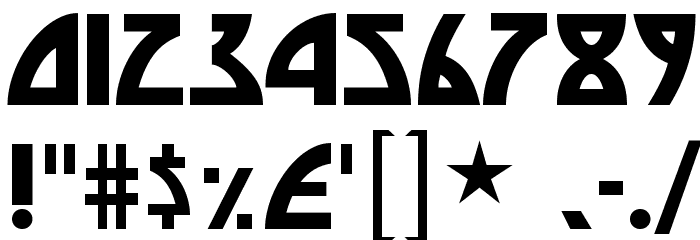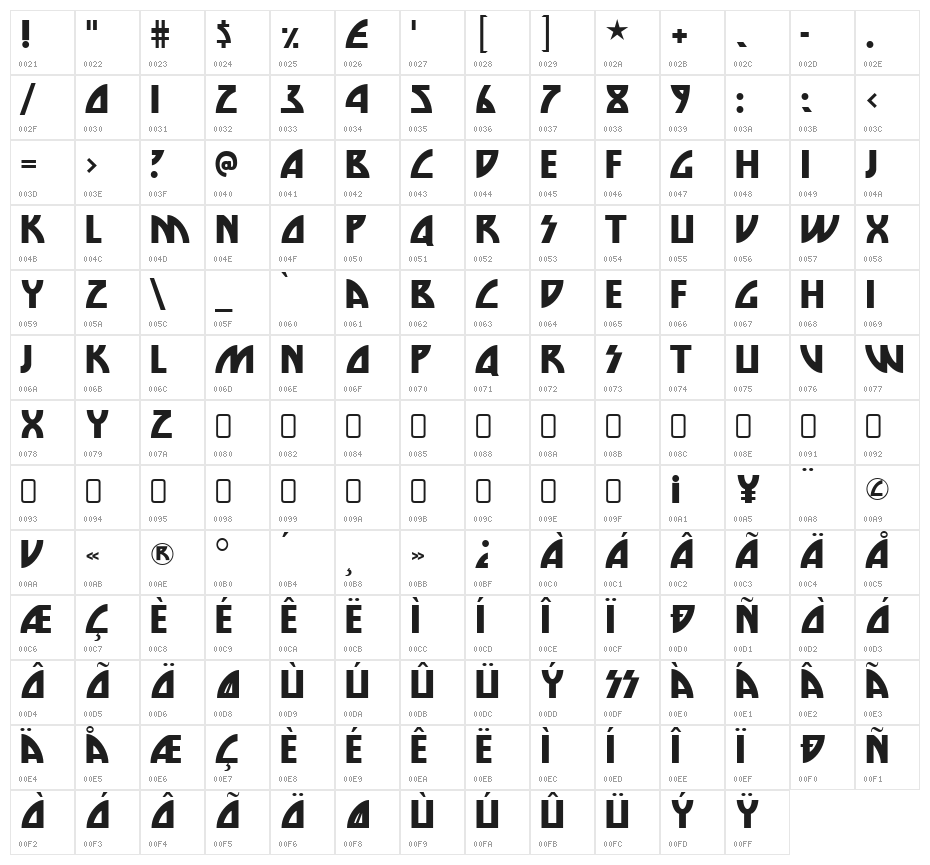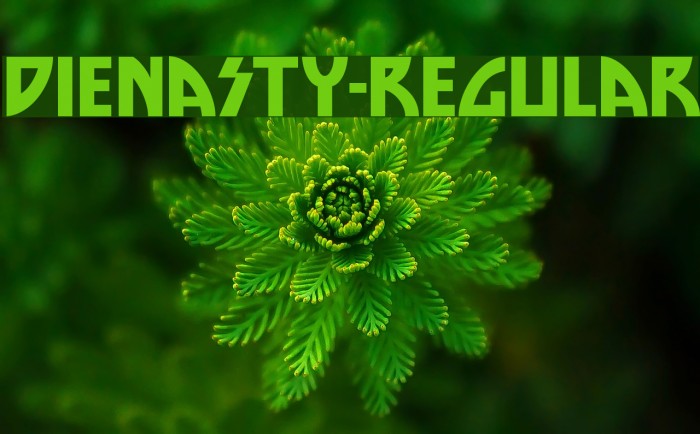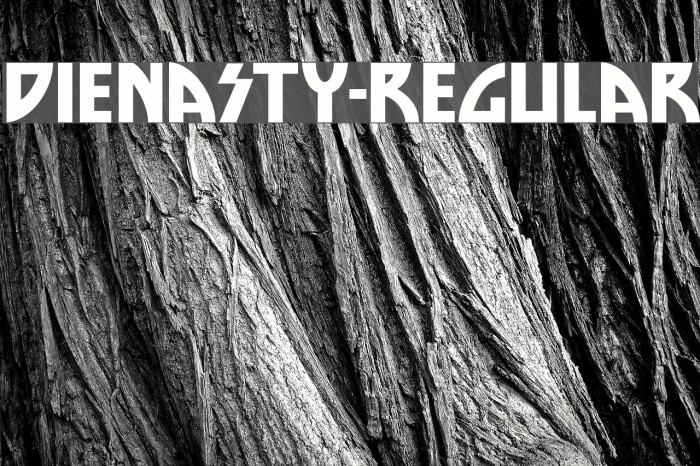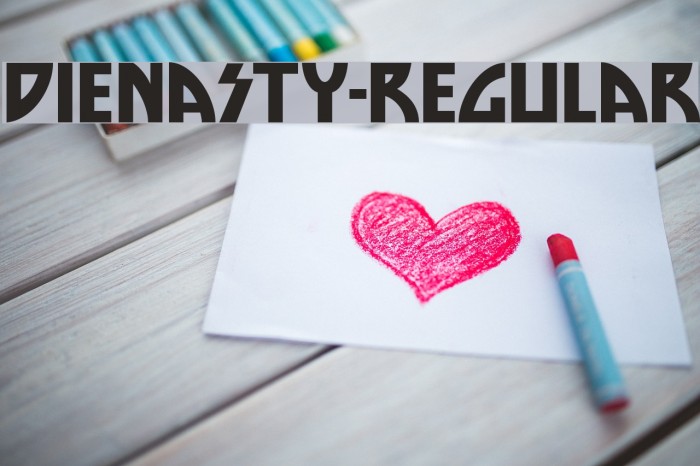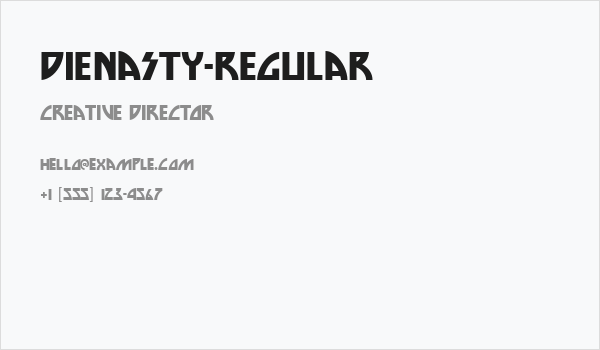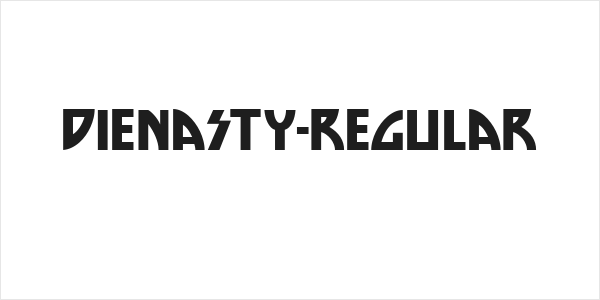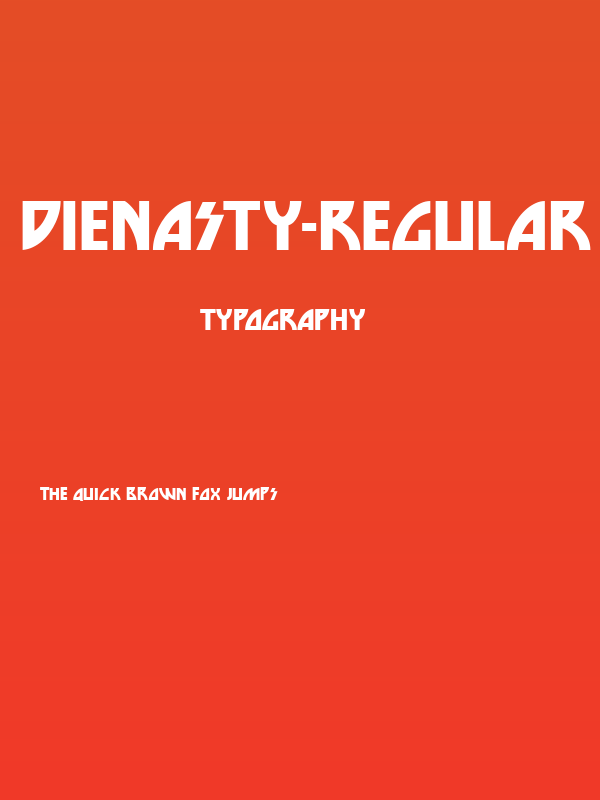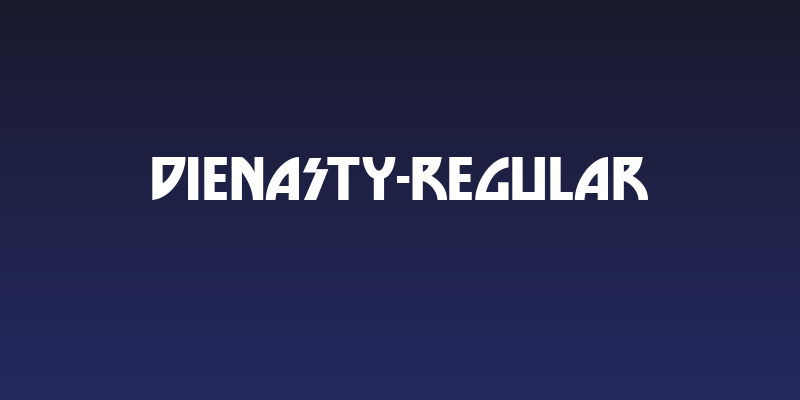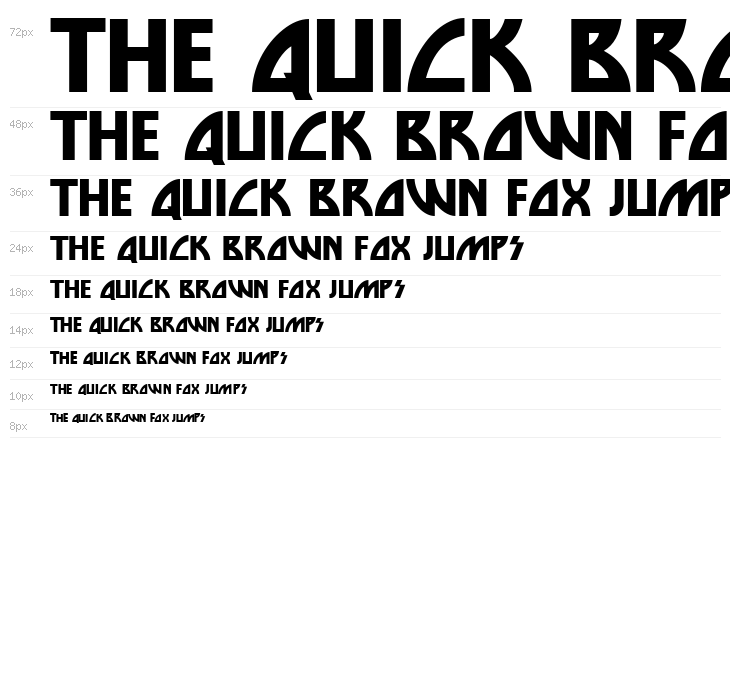
DieNasty-Regular Font
DieNasty-Regular Description
This font features a bold and striking design with angular and geometric shapes. The characters are crafted with sharp edges and a futuristic aesthetic, making it stand out in any design. The uppercase letters are particularly distinctive, with unique cuts and angles that give them a dynamic appearance. The numbers and special characters maintain this bold style, ensuring consistency throughout. The font's design is reminiscent of retro-futuristic themes, making it suitable for projects that require a strong visual impact.
| Overall Style | Futuristic, Retro |
| Proposed Projects | Ideal for sci-fi themed posters, video game titles, branding for tech companies, and any project requiring a bold, futuristic look. |